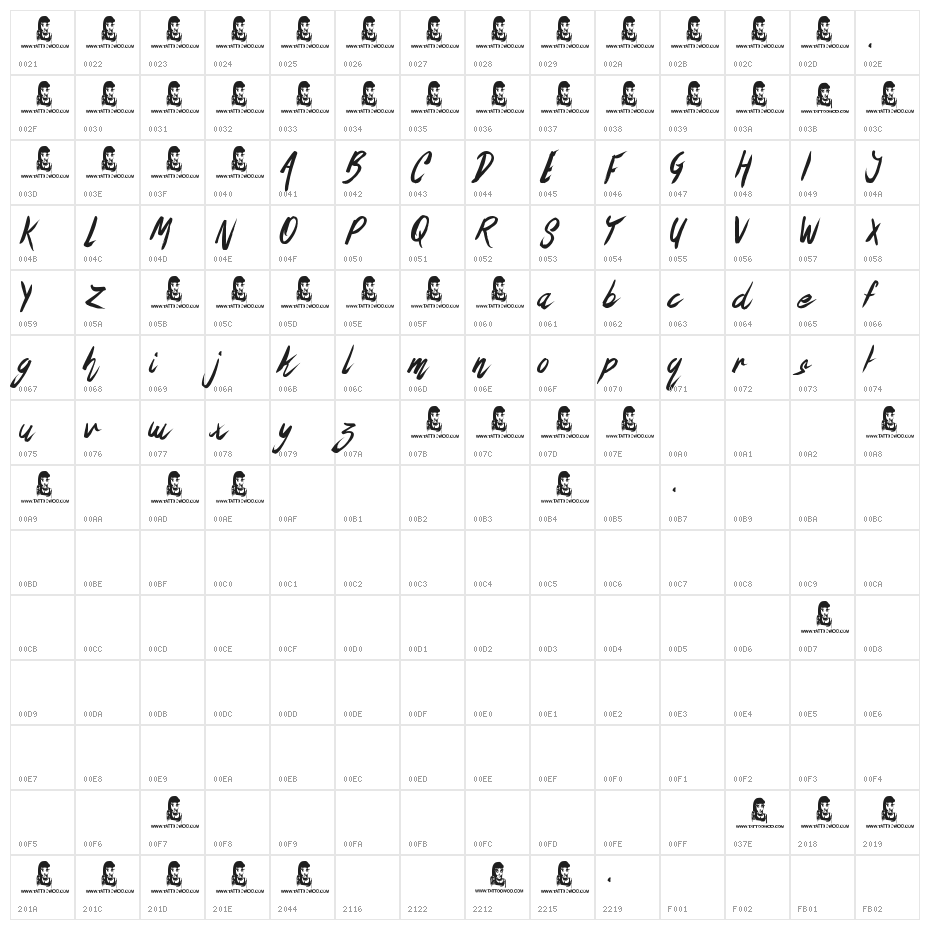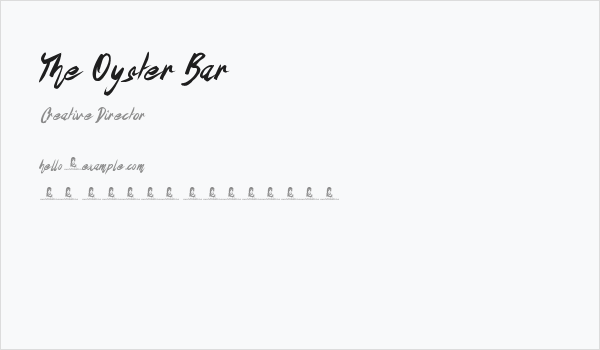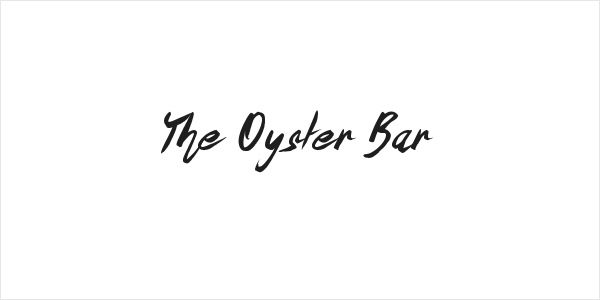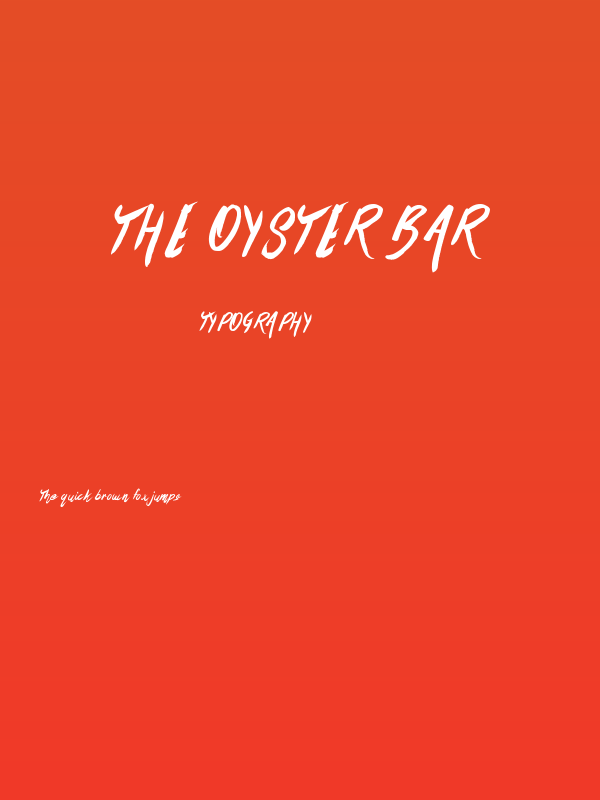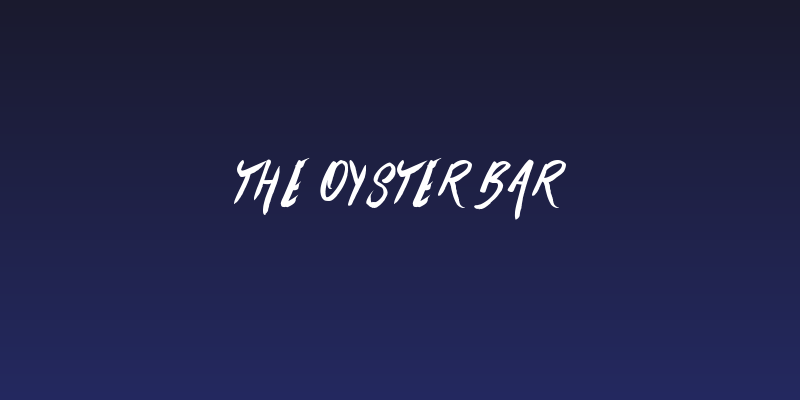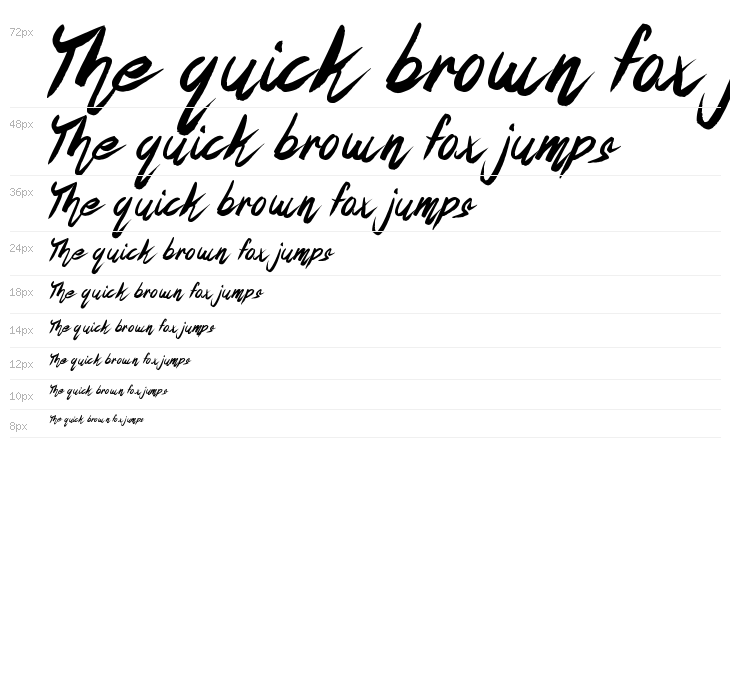
The Oyster Bar Font
The Oyster Bar Description
This font features a bold and expressive brush script style, characterized by its dynamic and fluid strokes. The letters are crafted with a sense of movement and energy, giving them a hand-painted appearance. The uppercase and lowercase letters maintain a consistent flow, with some letters having exaggerated curves and angles, adding to the overall artistic flair. The font's design is both modern and edgy, making it suitable for creative and eye-catching designs. It conveys a sense of spontaneity and creativity, perfect for projects that require a personal and artistic touch.